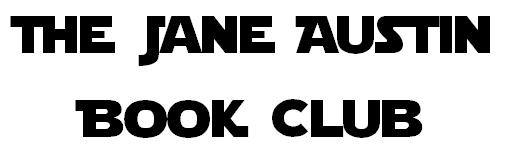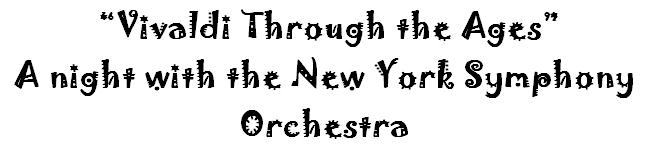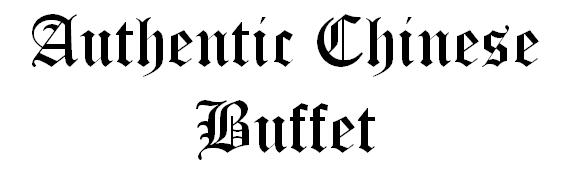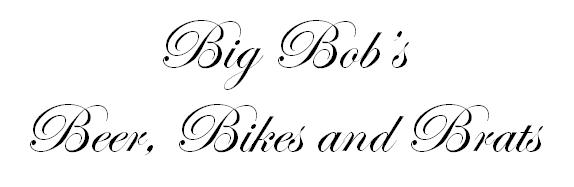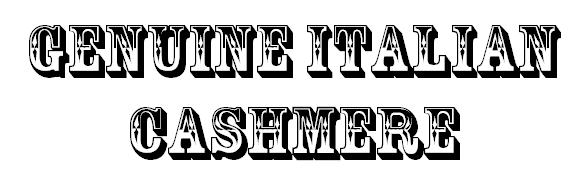
Right Message, Wrong Font: 10 Brand Messaging Misses
Type fonts are like other people’s jeans- we only notice the best and the worst, the coolest or the most outdated. Font design is a significant part of visual communications and bad font choices can lead to bad branding. Using the wrong font can clash with the message and confuse the reader. Check out these examples of when good messages get hijacked by bad fonts…
A tax attorney uses a childlike handwriting font
1. The only way you’re a tax attorney with this font is if you’re a tax attorney for the Peanuts gang.
A New York Symphony Orchestra text has a playful font
2. With special guest Weird Al Yankovic. When used outside of a playful context, whimsical fonts like this convey an image of immaturity.
A daycare uses font that looks like a ransom note
3. Unfortunately children's arts and crafts aren't the first thing this font evokes. It is important to understand the cultural context of your font and avoid any negative associations.
Text about a massage uses a very bold font
4. Maybe avoid the hot stone treatment. When creating a relaxing and inviting brand experience, keep in mind that bold and aggressive fonts and colors can be a major deterrent. Make your font relaxing and calming, not abrasive.
A Chinese buffet uses a traditional Old English font
5. Fonts need to match their message; Old English and Chinese food do not mix. Savvy customers often associate imagery and messaging with other related instances. Avoid being the brand that "stands out" for the sake of being different; let your product and additional messaging do the work for you.
A place titled "Big Bob's" uses a fancy romantic font
6. Read it twice, this isn't an invite to a wedding reception. Think like a customer. Would you want to visit Big Bob's on your motorcycle?
A ladies lingerie advertisement uses a punk-metal font
7. Giddyup evokes many emotions, usually around punk and metal, but never delicate nor feminine. If your product is light and airy, your brand messaging should be too.
An Italian Cashmere advertisement uses an old Western font
8. This brings up a new meaning to "Spaghetti Western". Some fonts conjure up a certain time period or place, and are best used when referencing something fitting to that time period or place.
A funeral home uses a playful font
9. Reconsider playfulness in every situation. In more instances than not, looking professional when dealing with sensitive topics is ideal.
A Jane Austin Book Club uses a sci-fi themed font
10. Meetings are held in a galaxy far, far away. Knowing the purpose for your business or group can have a huge impact on your messaging and use the font. Saving futuristic fonts for Sci-Fi clubs and conventions is a good rule of thumb.